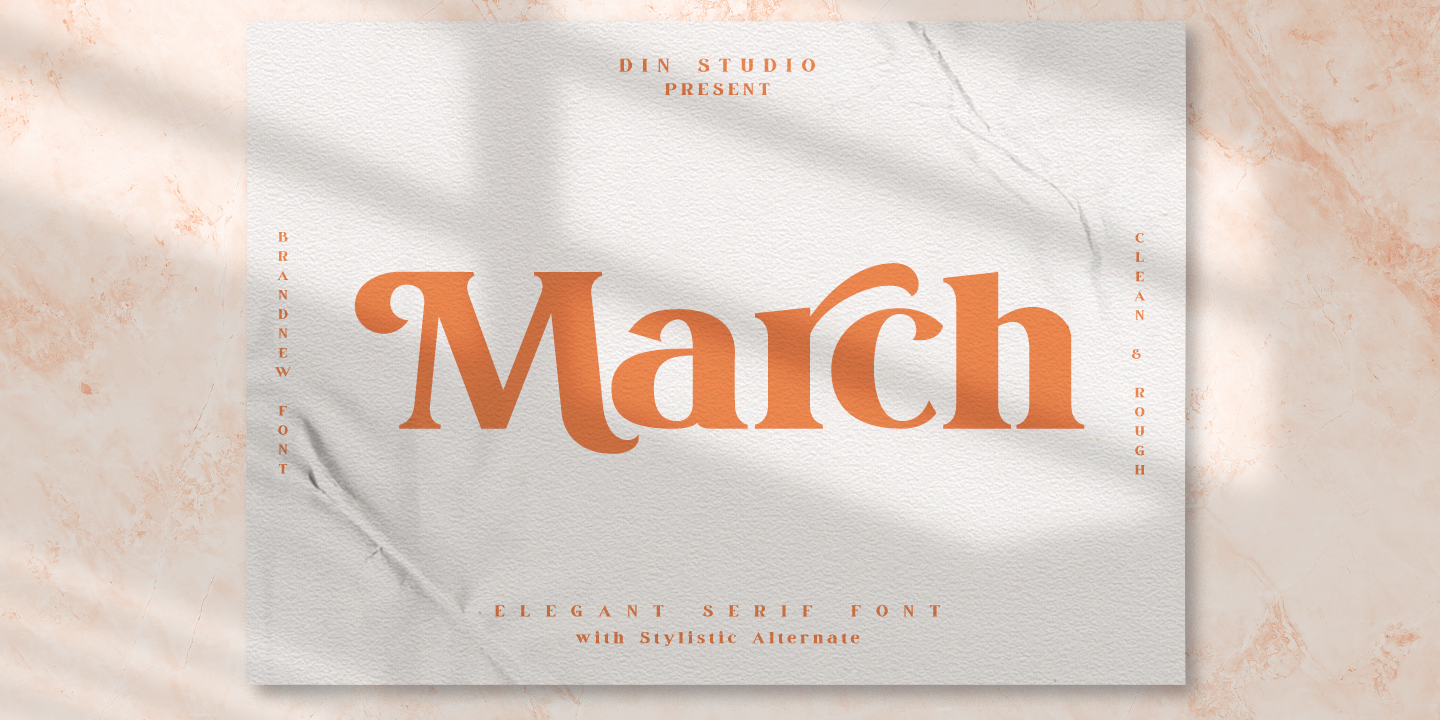
March Font is perfect for military organization branding, disciplined fitness campaigns, structured corporate identities, organized event promotions, systematic educational materials, regimented sports team logos, methodical government communications, and commanding leadership presentations. This authoritative typeface excels in organizational environments, structured design applications, and any project requiring disciplined precision that communicates systematic order and unwavering determination through confident forward momentum.
What makes March Font exciting is its remarkable ability to embody disciplined forward movement and systematic progression through confidently structured letterforms that convey unwavering determination and organized strength. The font features systematically designed characters with disciplined angles and march-like proportions that evoke feelings of structured progress and confident advancement, making it ideal for brands seeking to establish authoritative presence and communicate through organized visual language. Its disciplined presence ensures immediate recognition of systematic reliability and forward momentum.
March Font family includes multiple weights and styles: Regular, Bold, Light, Medium, Italic variations, and structured alternates with organizational embellishments and systematic decorative elements. Each family member maintains the distinctive disciplined character while offering comprehensive design options for structured campaigns, from organized informational text to commanding march headlines that establish systematic authority and organizational credibility through confidently disciplined typography.
Whether you're designing organizational brand identities or creating systematic advancement campaigns, March Font Free Download provides the perfect typography solution for disciplined branding needs. This font transforms ordinary text into confident organizational statements that communicate systematic progress and disciplined determination. Military organizations and structured leadership brands choose this typeface for its ability to convey forward momentum through systematically crafted letterforms that march through designs with unwavering confidence and celebrate the powerful strength of organized advancement.